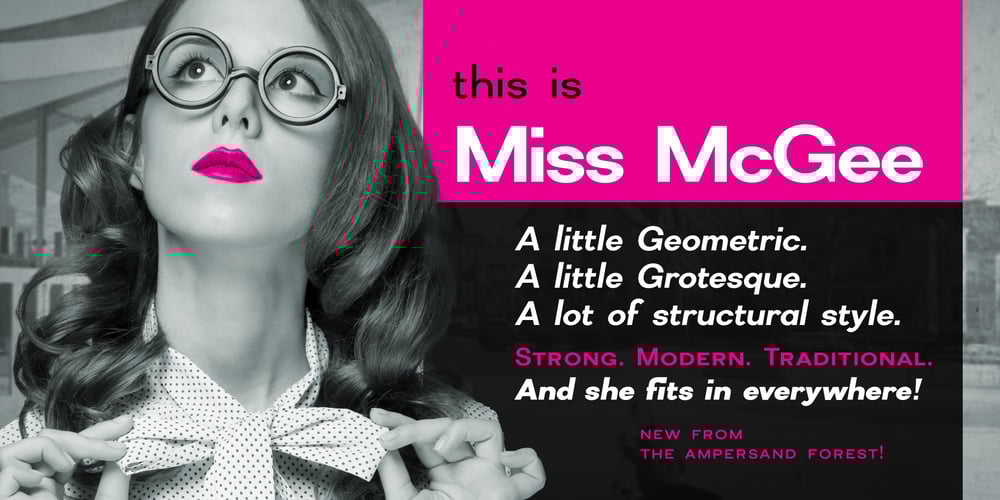
Miss McGee Font Family was designed by DC Scarpelli and published by The Ampersand Forest. Miss McGee contains 6 styles and family package options. Miss McGee is equal parts Grotesque and Geometric, which gives here a no-nonsense, midcentury feel. Her letterforms are strong, wide in profile, and legible, making her a great choice for both text and display!She supports Western European, Cyrillic, and monotonic Greek, and has a full set of true small caps in each. She also has useful ligatures and alternates!Miss McGee is a companion typeface to Mr Chips, also from The Ampersand Forest!